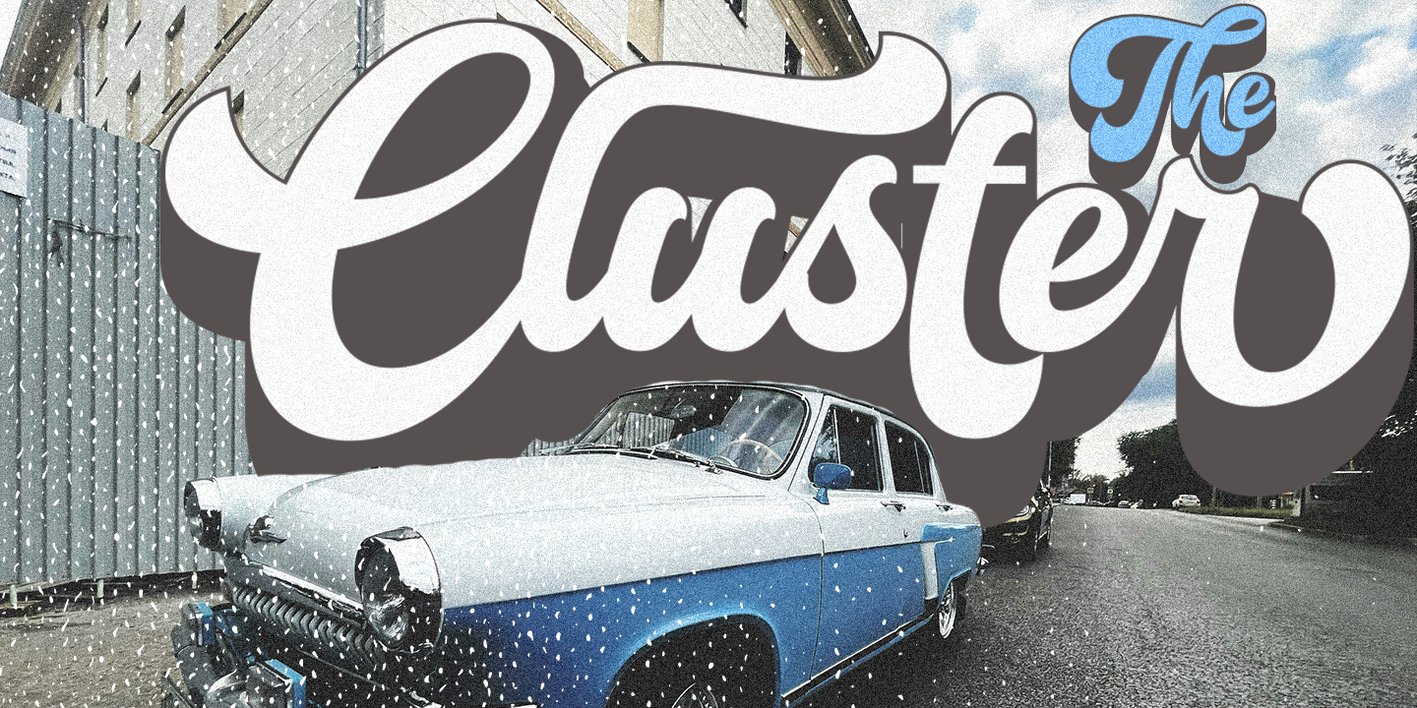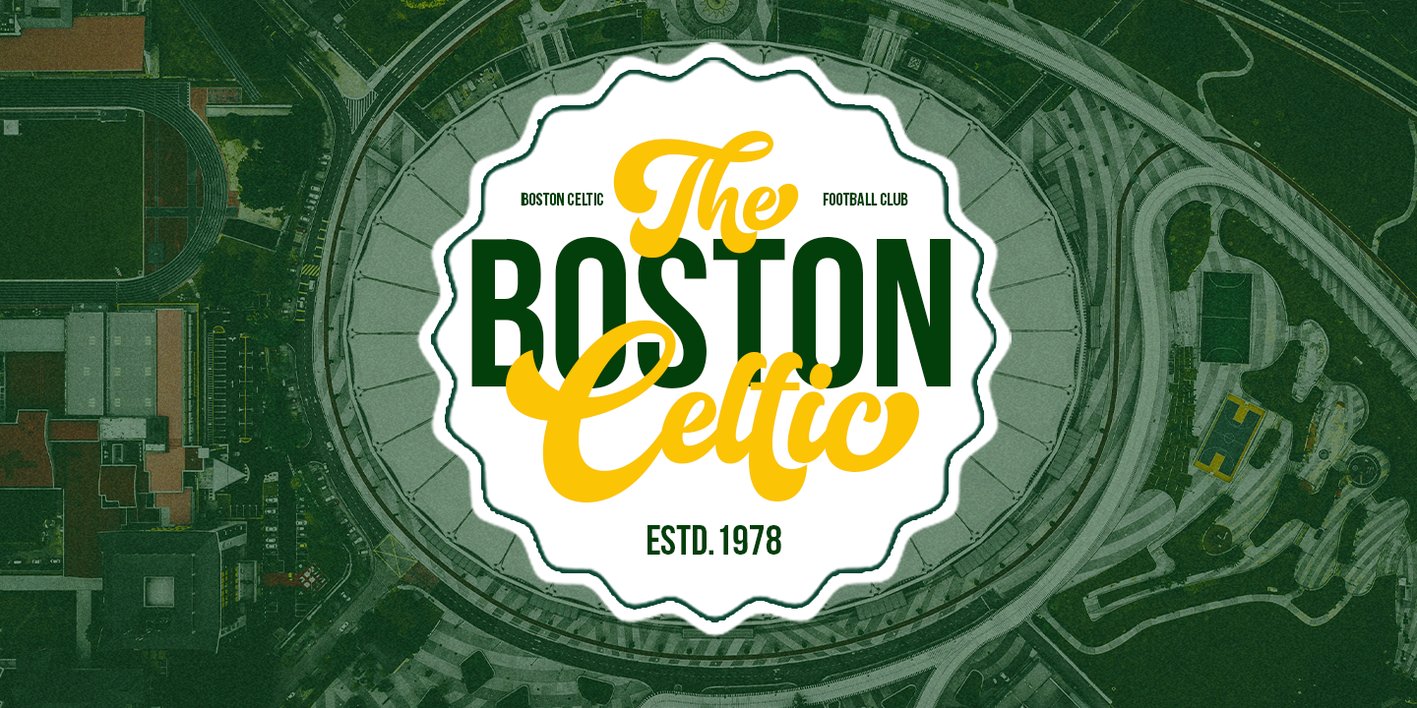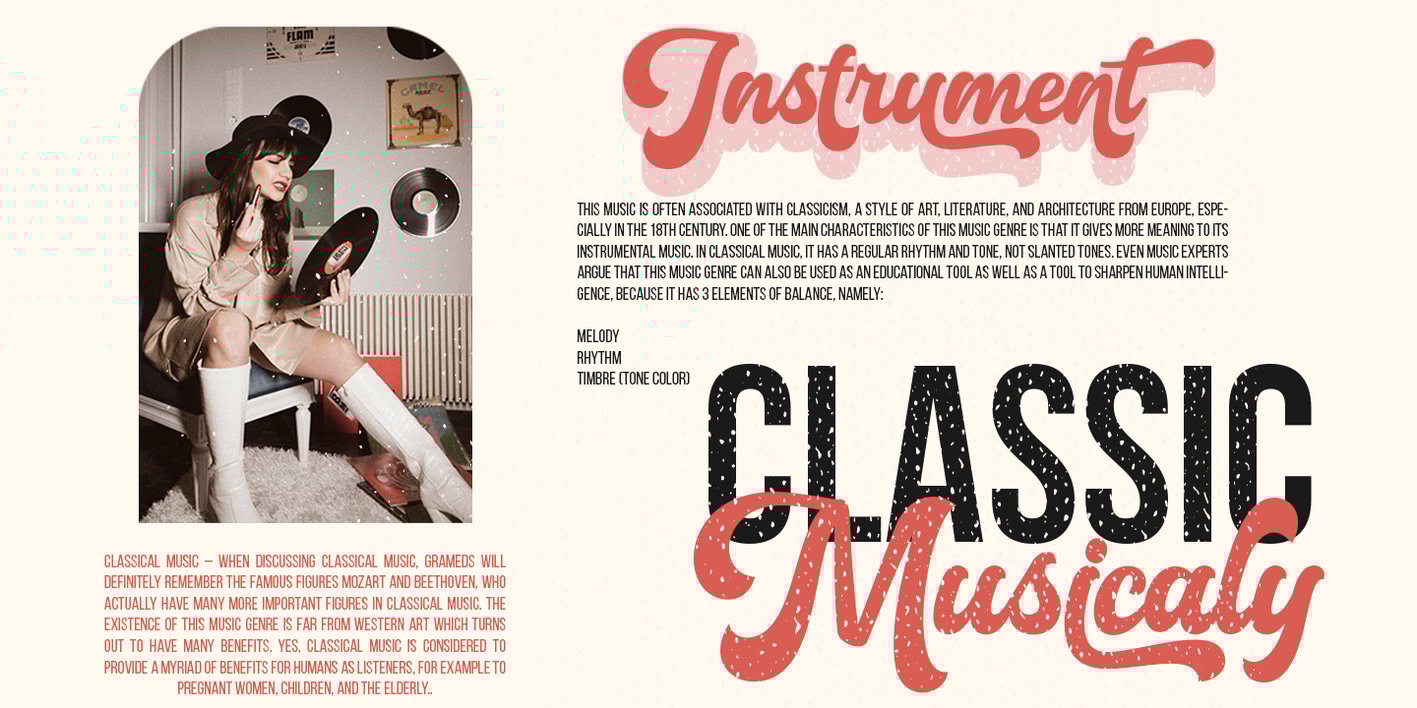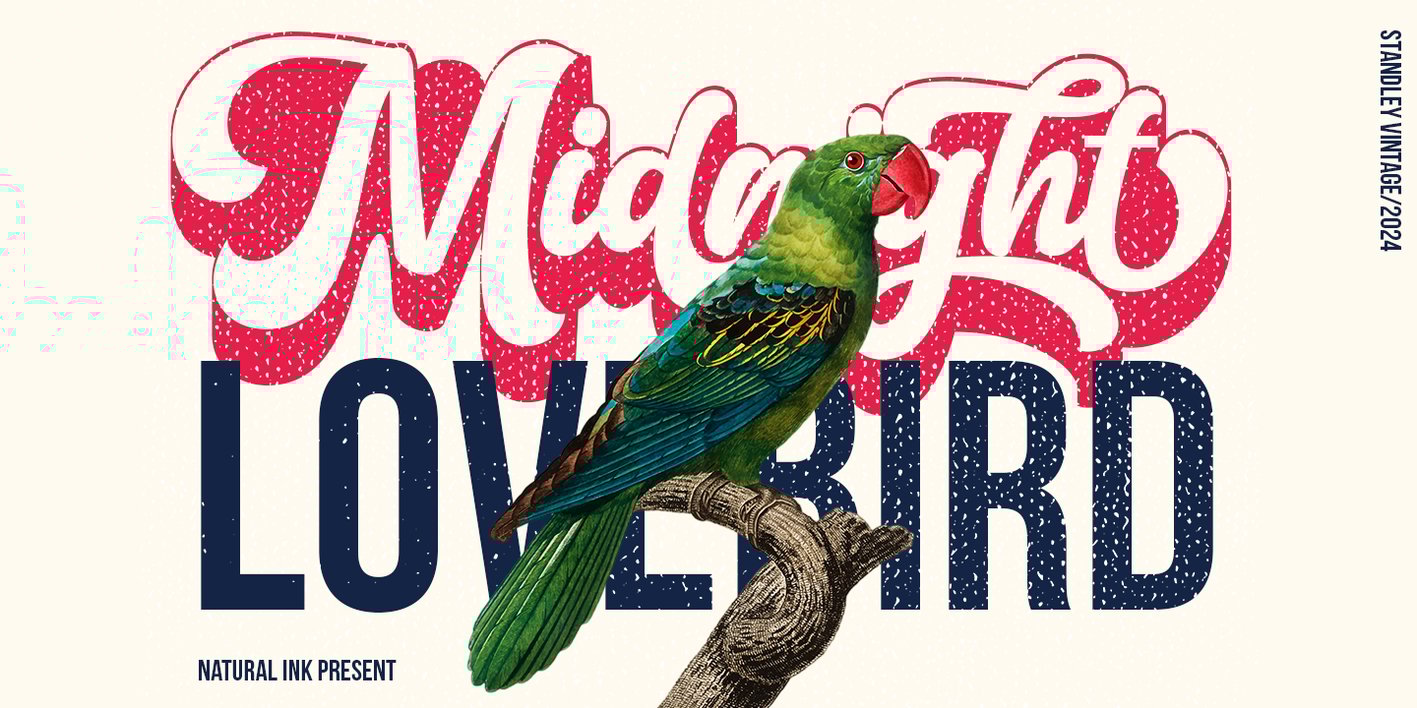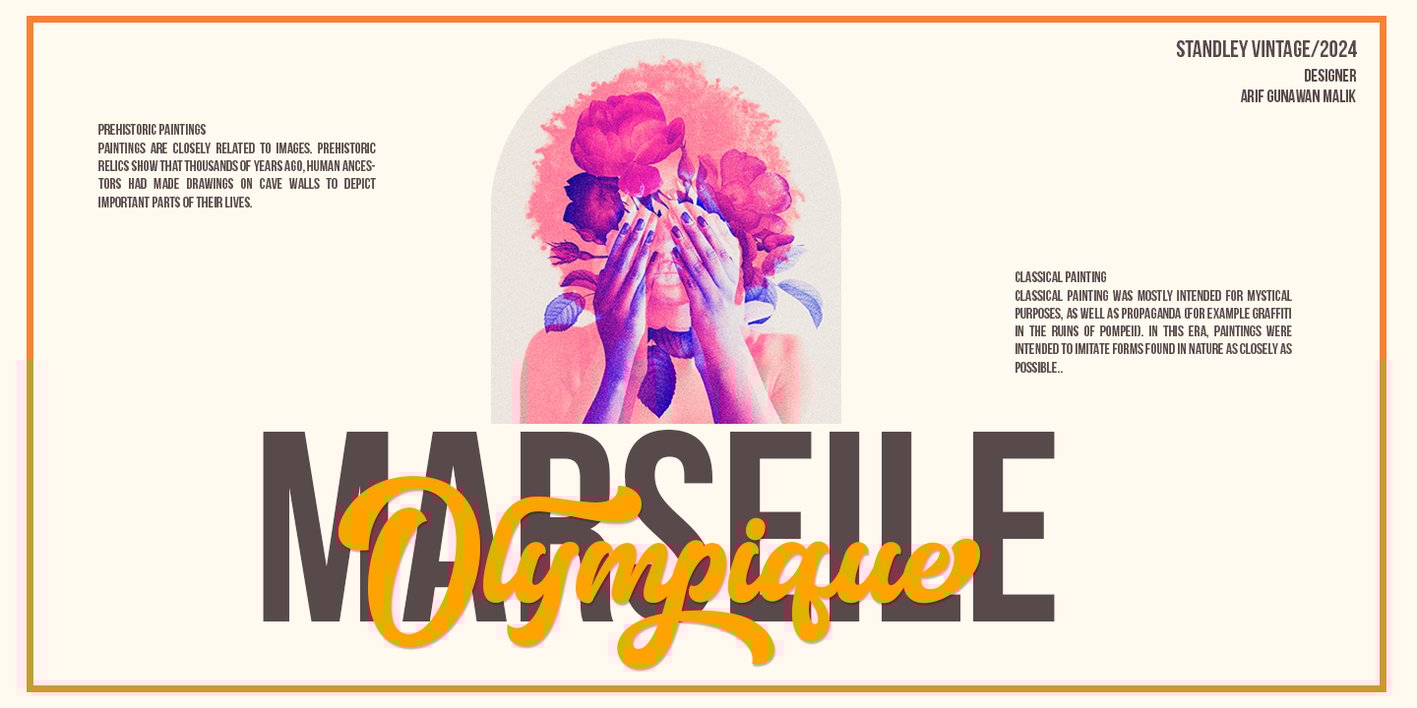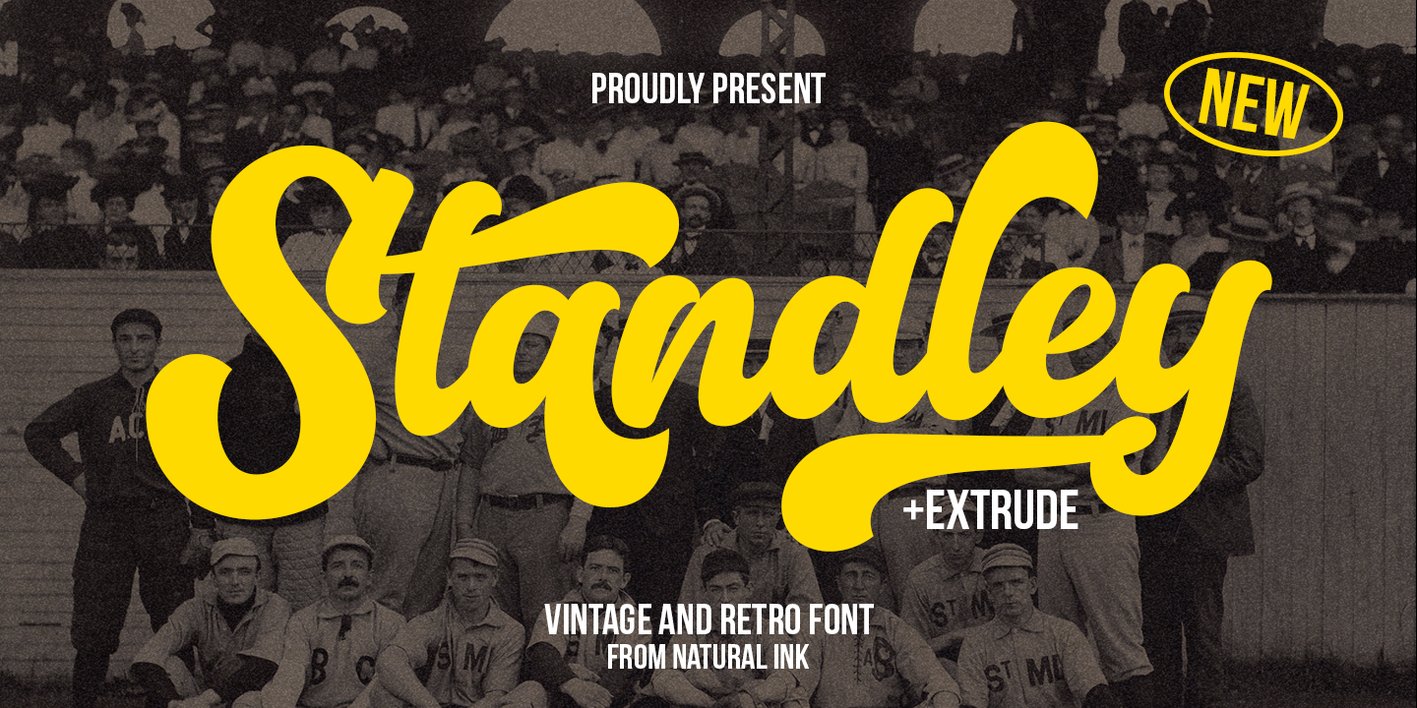
Standley Font
Standley is retro script font with vintage vibes. This font is cute, whimsical, and playful. Standley has lots of extra glyphs to give the designers more options for designing with this font. It also has extrude style to give shadow or layer for the regular one. This font is perfect for any projects, especially with vintage style, such as logo, crafting, wedding invitation, branding, sticker, sublimation, quotes, and many more. Feel free to chat us if you have any question. Thank you...